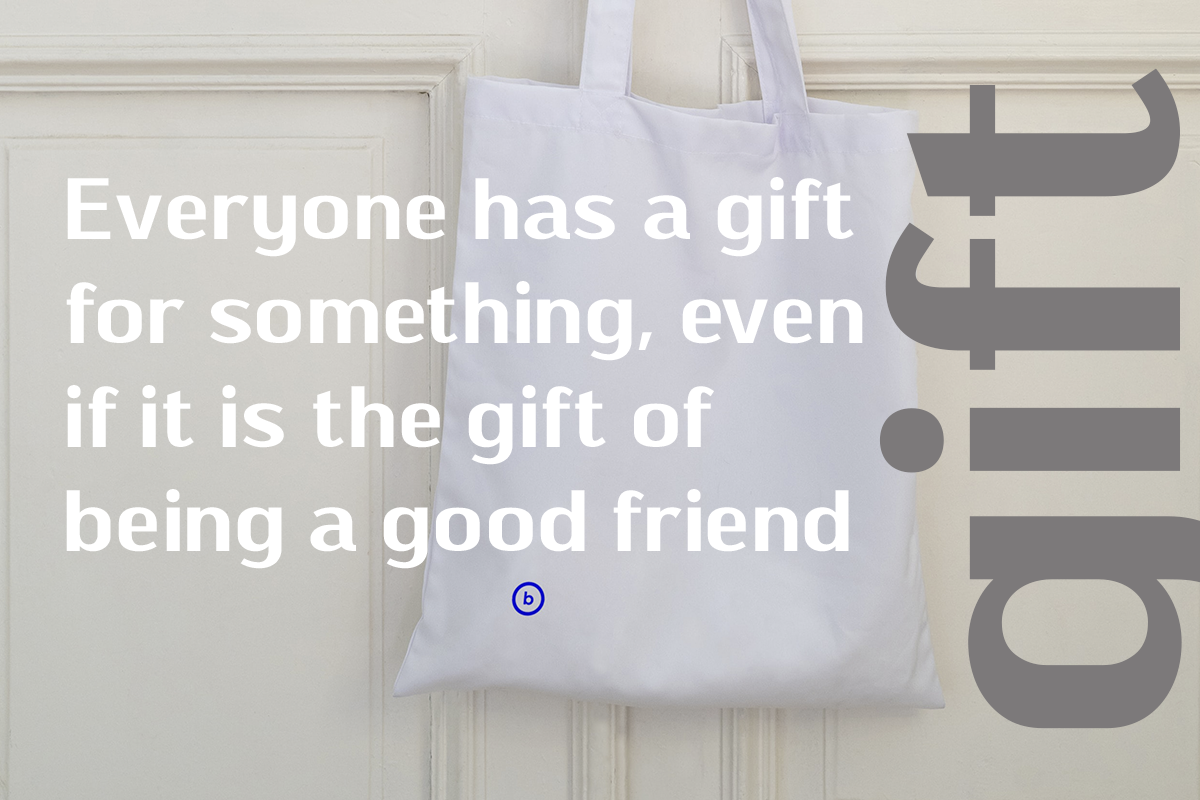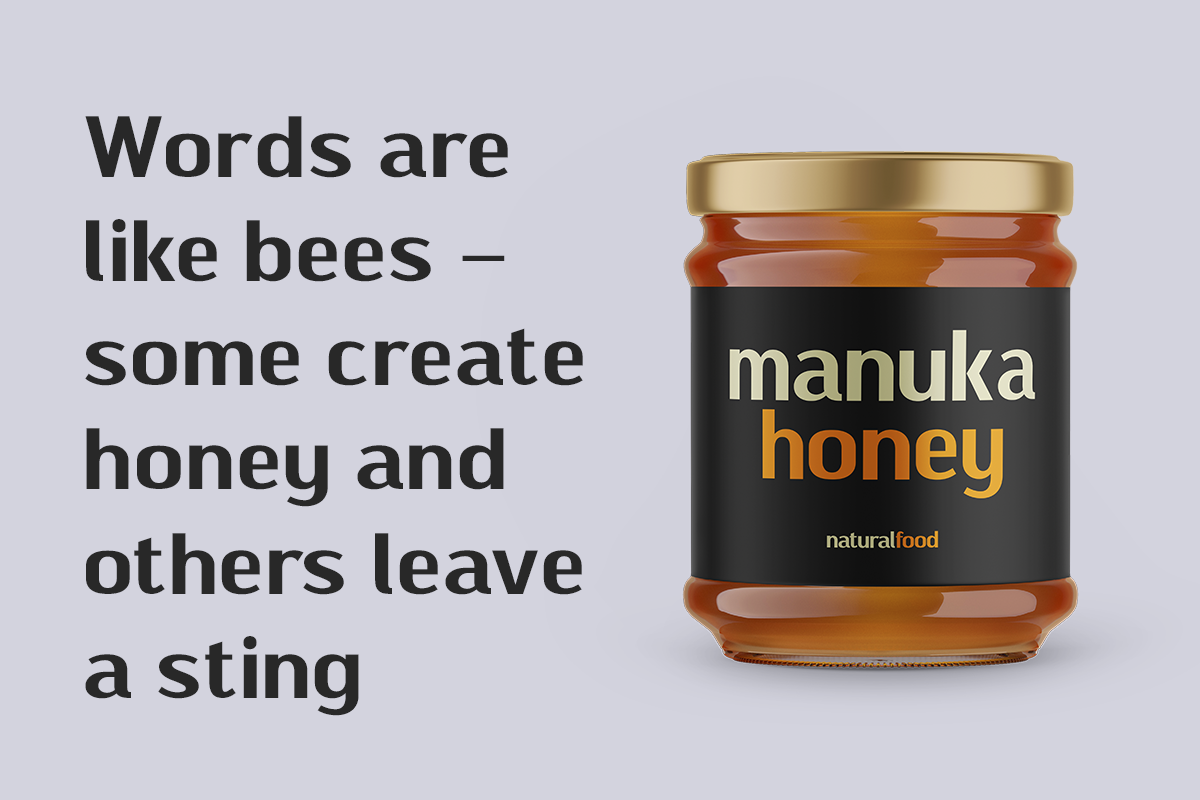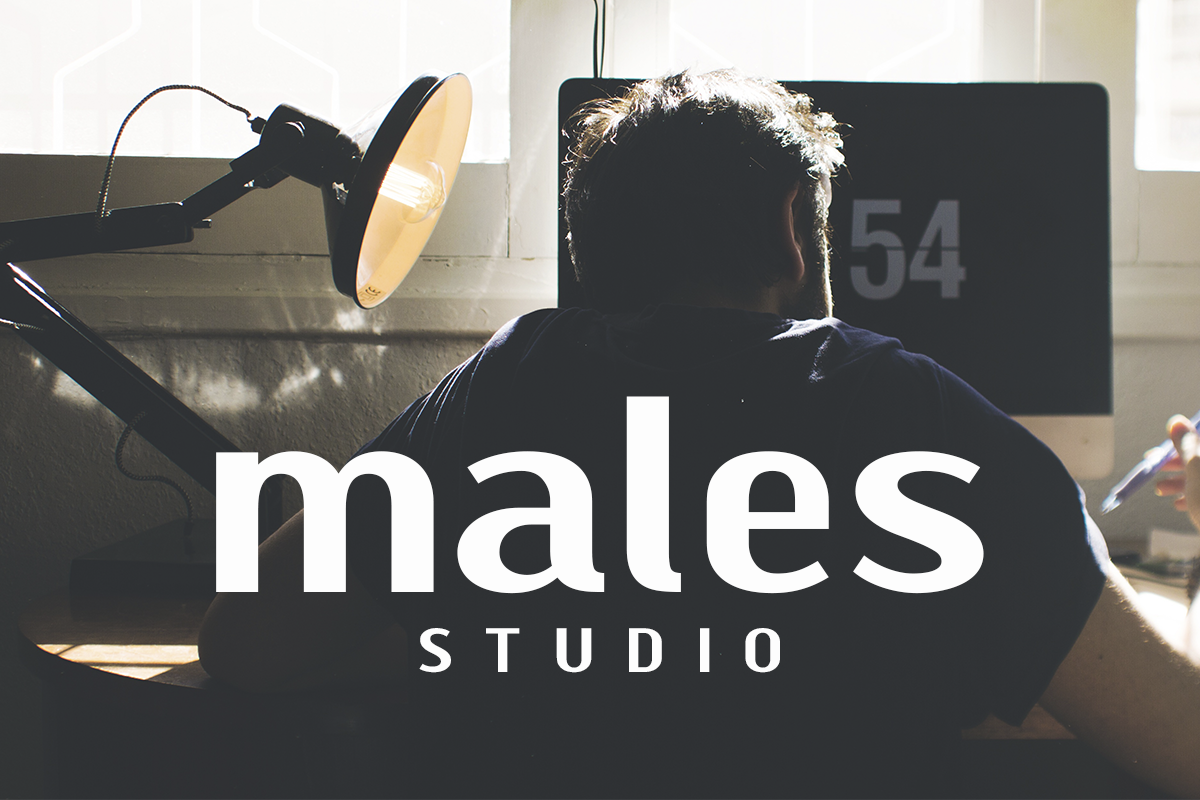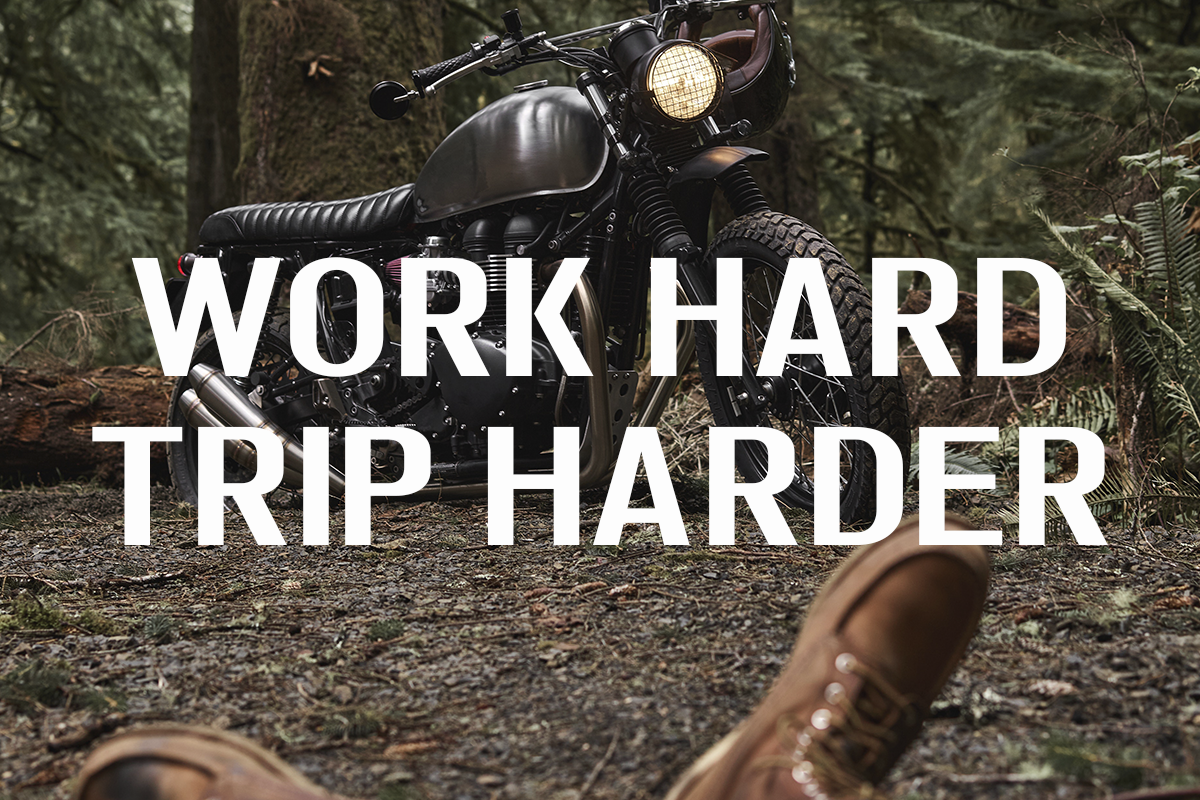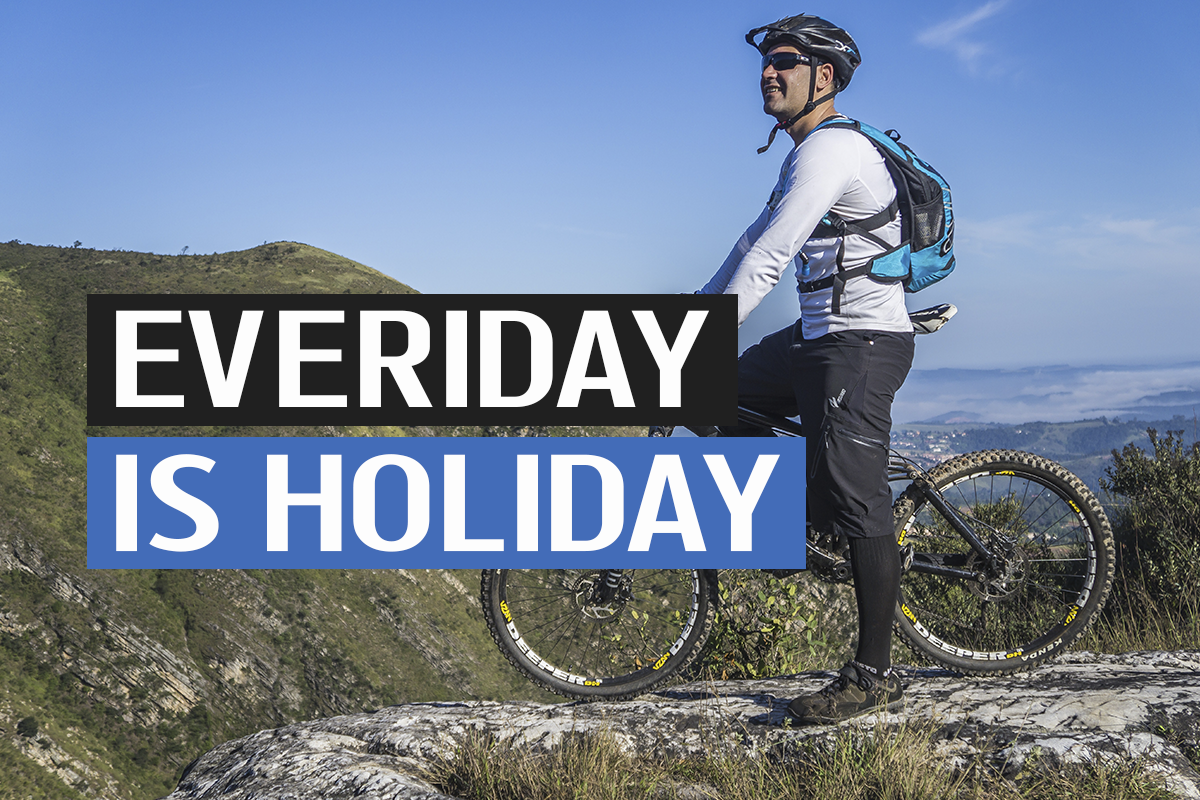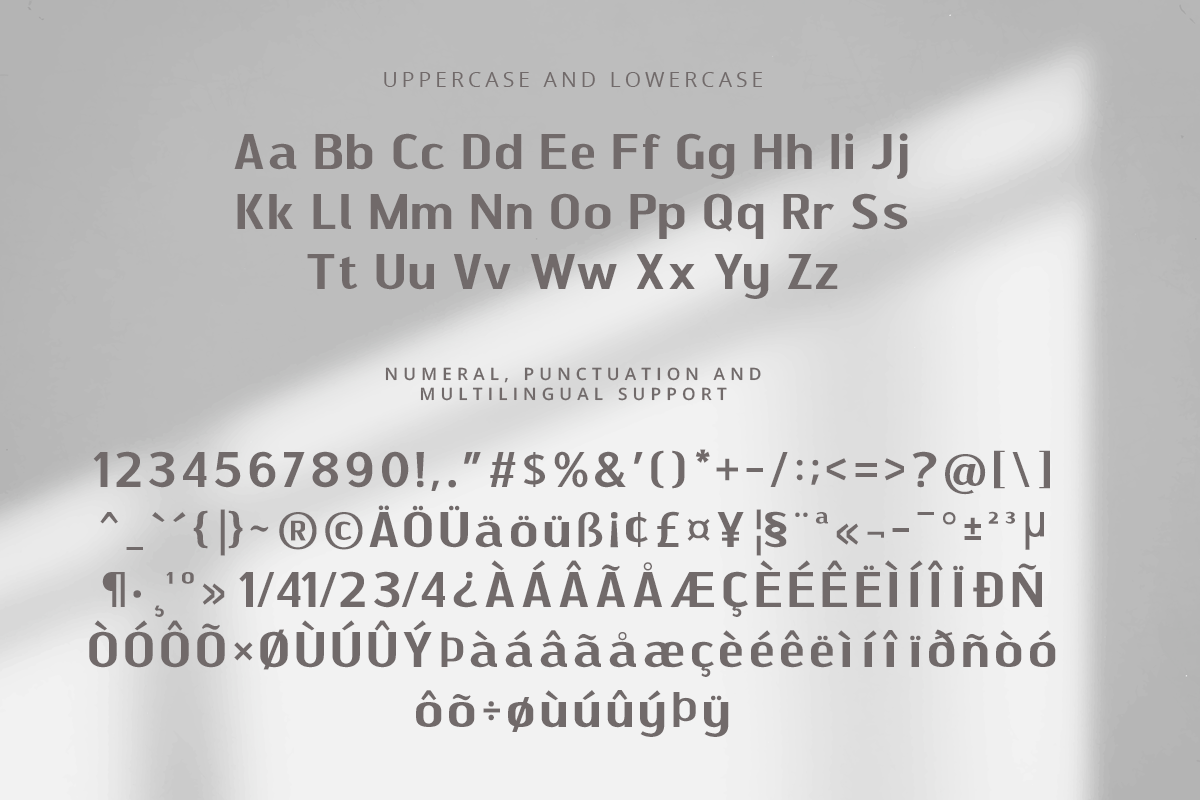
Ebson Sans Serif Font Ebson sans serif font is a new creation that comes with an attractive and elegant style. This font is one of those fonts that give you options for people who are interested in using a sans serif font. Ebson font has the characteristic that no additions are excessive in each shape of the letter. This font has a clean, bold, and clear form. From the style, this font belongs to legible fonts. This font will look clear when used with small and large font sizes. Ebson font is one of the best fonts to practice for branding an object, such as on automotive, packaging bottles, and signboards for places (studios, cafes, world centers, and so on). This font can also be used for the intro or outro on the web, whether a movie or advertisement. This font can create bold, simple, and elegant impressions from the product it is combined. The desired impression of this font must be concluded by other themes and ornaments that attend it. Also, a font must be used in the proper font size. Our Sans Serif fonts collection is compatible for use as, Figma fonts, Canva fonts, Freepik Fonts, and Adobe Fonts. They also work as Windows Fonts, and Apple Fonts. For your social media needs, you can use and install fonts in our Sans Serif font collection to use as Instagram Fonts, Facebook Fonts, and Twitter Fonts.